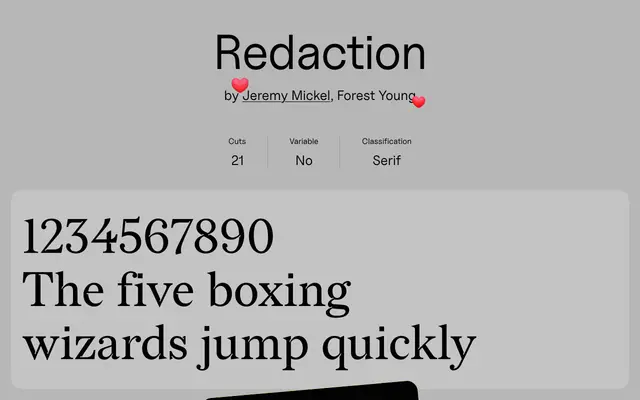
Redaction
A free serif family from Jeremy Mickel and Forest Young, offered in 21 cuts under the SIL Open Font License.
Designed by Jeremy Mickel and Forest Young, Redaction spans 21 cuts, giving it unusual breadth for a freely licensed serif. The SIL Open Font License permits commercial use, modification and redistribution, making it accessible for a wide range of projects. Its name suggests an editorial or documentary influence, likely suited to text and display work with a serious character.
Classified as serif by the foundry; the name and designers suggest a display-oriented serif with editorial connotations, likely inspired by redaction marks found in legal or journalistic documents.